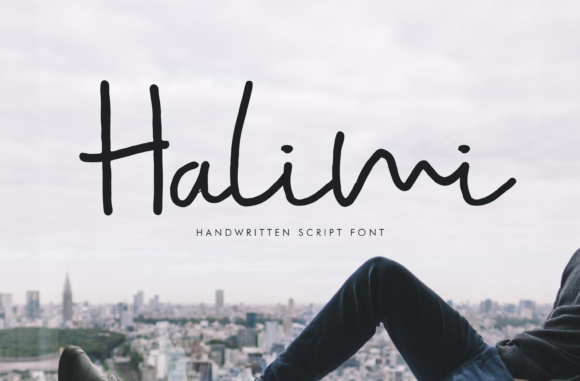
Introducing the Halimi Font - Your Ticket to a Mesmerizing Handwritten Aesthetic
In a world clamoring for authenticity, the Halimi Font emerges as a breath of fresh air, a script font that emanates the allure of natural handwriting. Nest Studio, the creative force behind this masterpiece, has meticulously crafted each letterform to emulate the organic flow and charm of penmanship, inviting you to infuse your designs with a touch of genuine personality.
With Halimi as your design companion, you'll embark on a journey of limitless creativity. Its enchanting strokes will weave a spellbinding narrative across your projects, whether you're crafting heartfelt invitations, adding a personal touch to your blog, or designing social media posts that resonate with your audience. The Halimi Font is not just a collection of characters; it's an open door to a world of heartfelt expression and captivating visuals.
Immerse yourself in the beauty of Halimi's script style. Its fluid lines dance across the page, mimicking the graceful movements of a skilled calligrapher. Each letterform is a work of art, meticulously shaped to convey a sense of elegance and sophistication. Whether you're designing wedding invitations, creating eye-catching logos, or adding a touch of charm to your branding, Halimi will elevate your designs to new heights of sophistication.
Discover the versatility of Halimi, a font that seamlessly adapts to a myriad of creative endeavors. Its inherent charm shines through in both formal and informal settings, making it the perfect choice for a wide range of projects. From elegant wedding stationery to playful social media graphics, Halimi effortlessly captures the essence of your message, transforming your words into captivating visual expressions.
Unleash your creativity and let Halimi guide you on a journey of artistic exploration. Its user-friendly nature makes it accessible to designers of all skill levels, empowering you to create designs that captivate and inspire. As you immerse yourself in the world of Halimi, you'll discover a font that seamlessly blends timeless elegance with modern flair, a font that will leave an indelible mark on your creative endeavors.